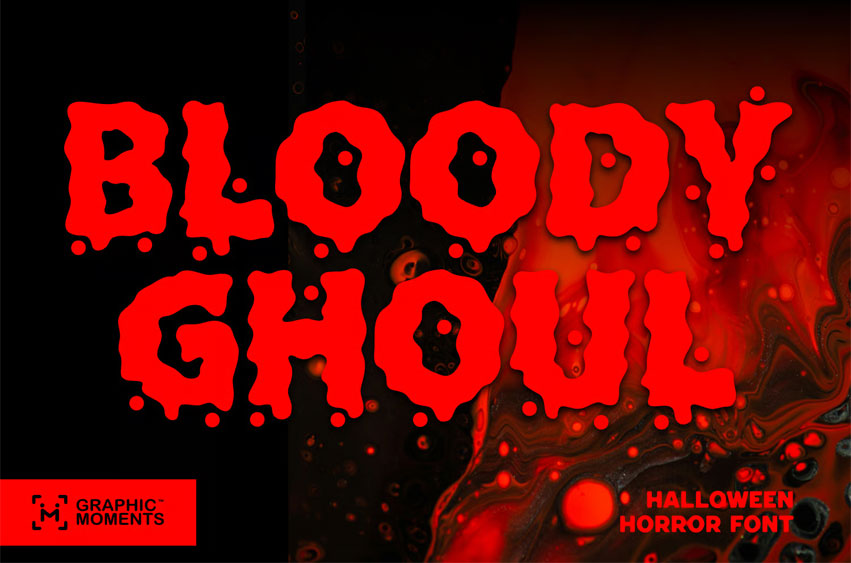
Bloody Ghoul Font is a terrifying Halloween font drenched in creepy energy and gothic horror. Its jagged strokes and unsettling curves bring death to life—making it ideal for scary movie posters, horror headlines, thriller titles, and witchy branding. From evil rituals to haunted mysteries, this font sets a spooky tone that grips the soul.
Whether you’re summoning monsters in a Halloween flyer, designing a deathly gothic invite, or crafting a witch-filled book cover, Bloody Ghoul brings fear and fascination together. It’s not just a font—it’s a horror experience waiting to unfold. Dare to design with Bloody Ghoul… if you’re not afraid of the dark.